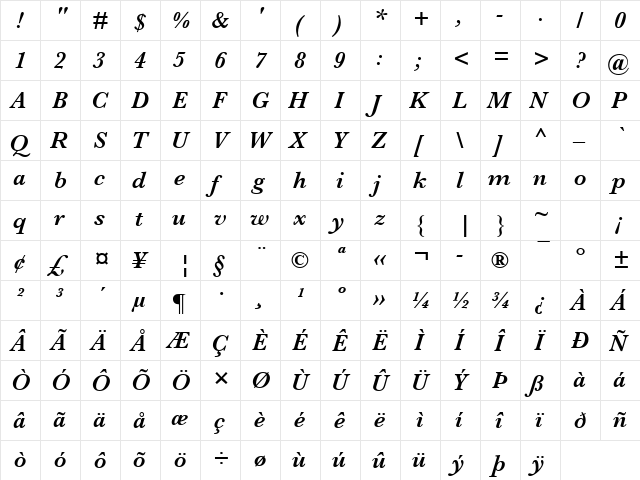
Baskerville SemiBold Italic
Design Context for Baskerville Typeface
Baskerville takes a measured approach to typography — its balanced proportions and neutral character make it a reliable workhorse for both digital and print work. Its italic angle brings a sense of urgency and motion to the letterforms. The heavy weight commands attention and anchors typographic hierarchies.
Pro Tip: Try Baskerville for annotation and caption copy alongside an upright companion — the contrast in angle creates a dynamic but ordered typographic system.